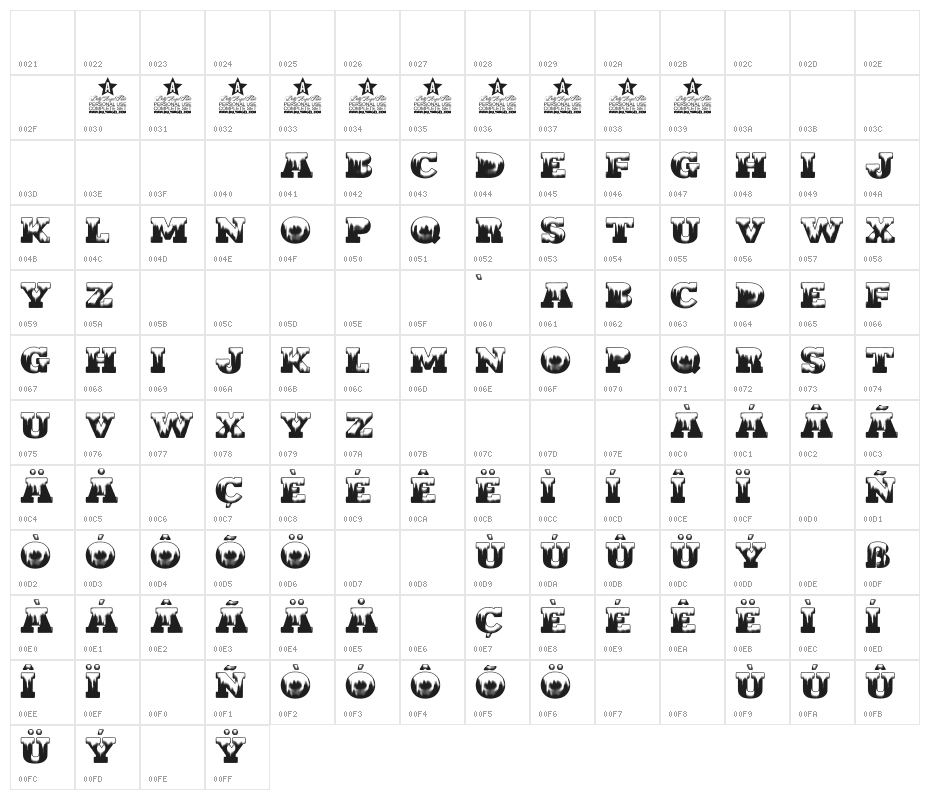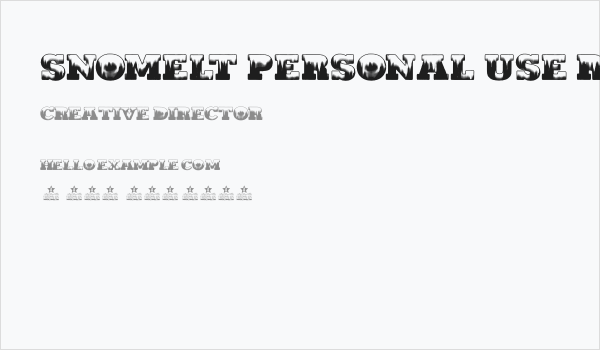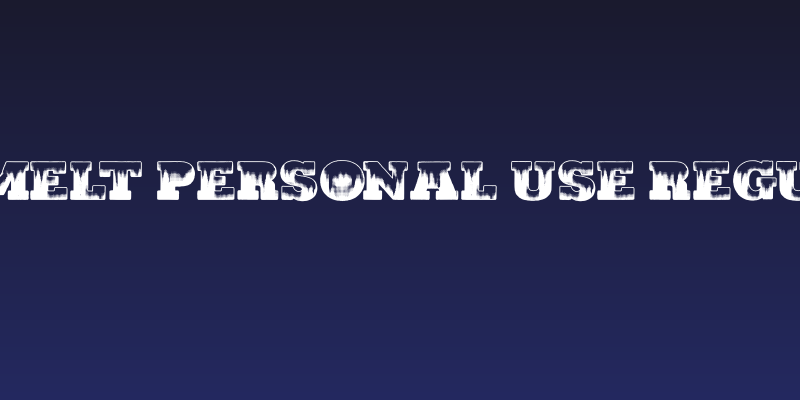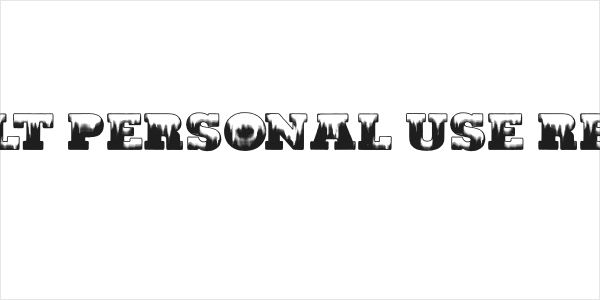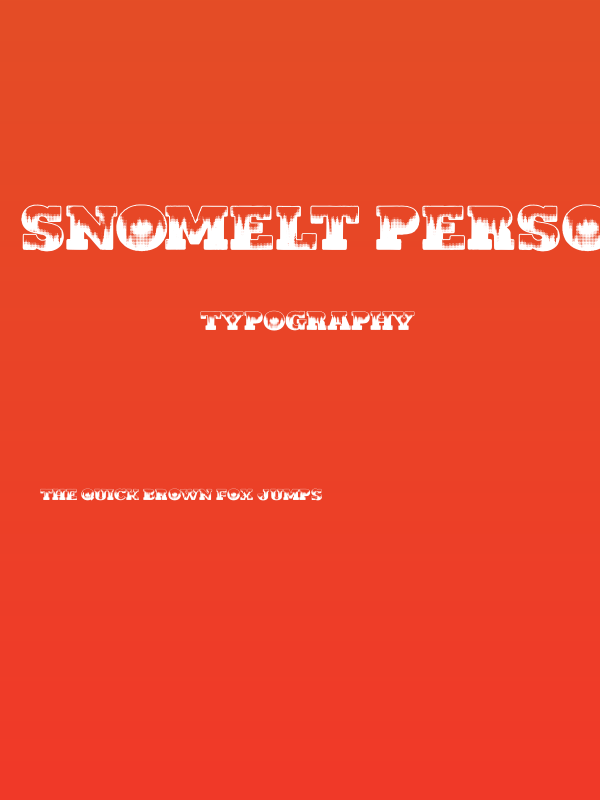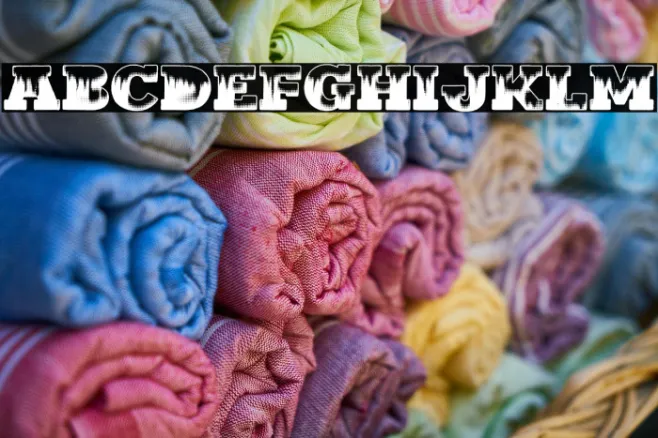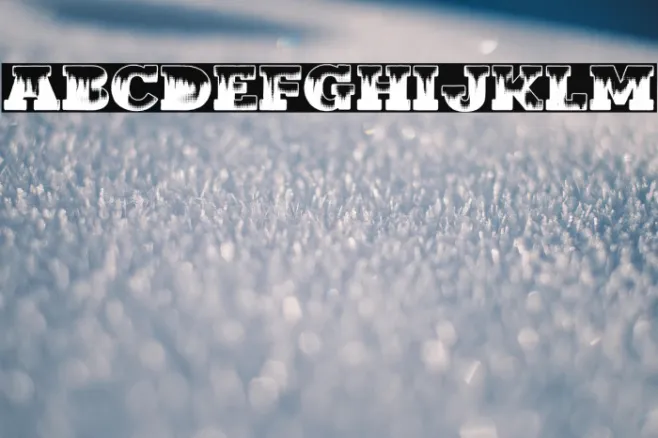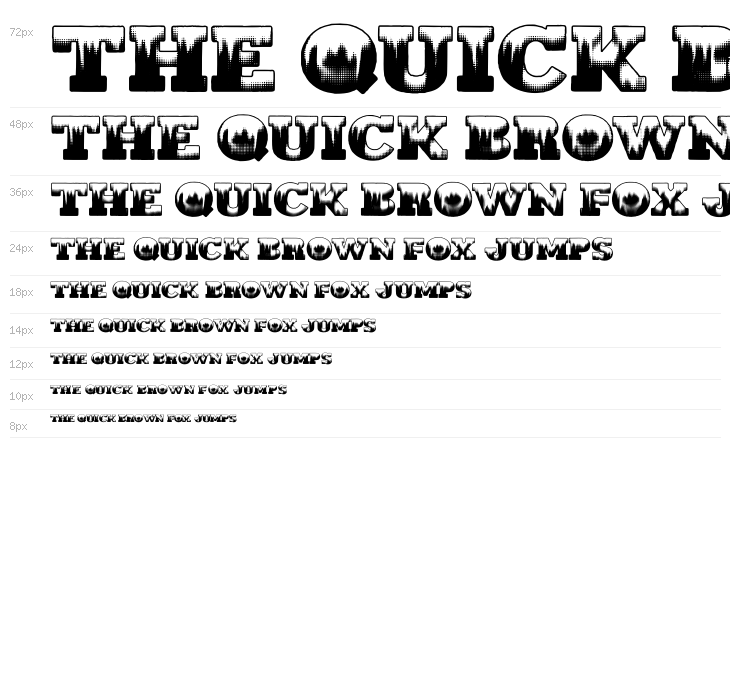
SNOMELT PERSONAL USE Regular Font
SNOMELT PERSONAL USE Regular Description
This font features a bold, decorative style with a unique gradient effect that gives the impression of melting or dripping. The uppercase letters are designed with a strong presence, making them ideal for attention-grabbing headlines or titles. The font's distinct appearance is characterized by its thick strokes and shadowed edges, creating a sense of depth and dimension. The letters are evenly spaced, ensuring readability despite their intricate design. This font is perfect for creative projects that require a touch of drama and flair, such as posters, logos, or branding materials.